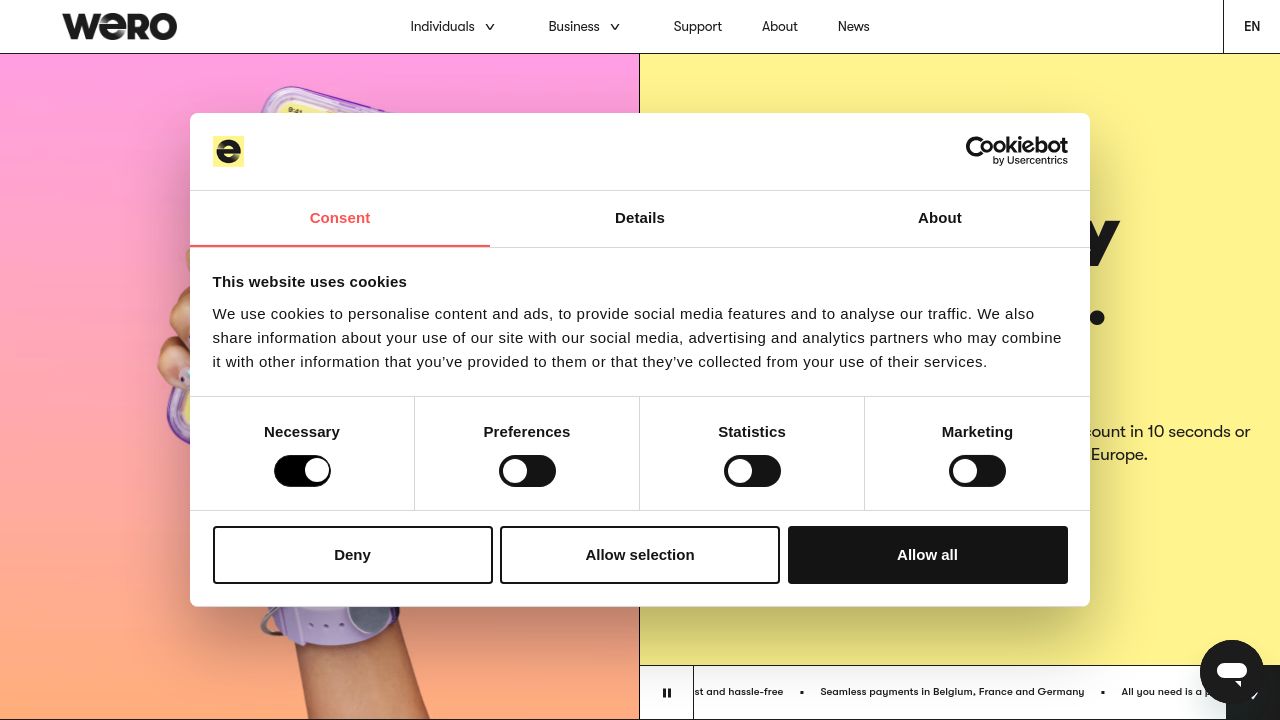
Wero-wallet.eu leverages the unique charm of GT Walsheim Wero as its primary typeface, showcasing a distinctive visual identity in the digital payment landscape. This custom font underscores Wero’s commitment to delivering fast and secure transactions for its audience. The choice of GT Walsheim Wero suggests a focus on clarity and accessibility, aligning with the brand's mission to facilitate seamless monetary exchanges. With no fallback fonts in use, the brand maintains a strong typographic presence across its platform.
The primary font used on wero-wallet.eu is GT Walsheim Wero, a custom typeface designed specifically for the brand, with a weight of 400.
GT Walsheim Wero offers a unique character that sets it apart from standard sans-serif fonts, providing a more tailored and recognizable look for Wero's branding.
Currently, the GT Walsheim Wero font used on wero-wallet.eu is available in a weight of 400, emphasizing readability and consistency in web design.